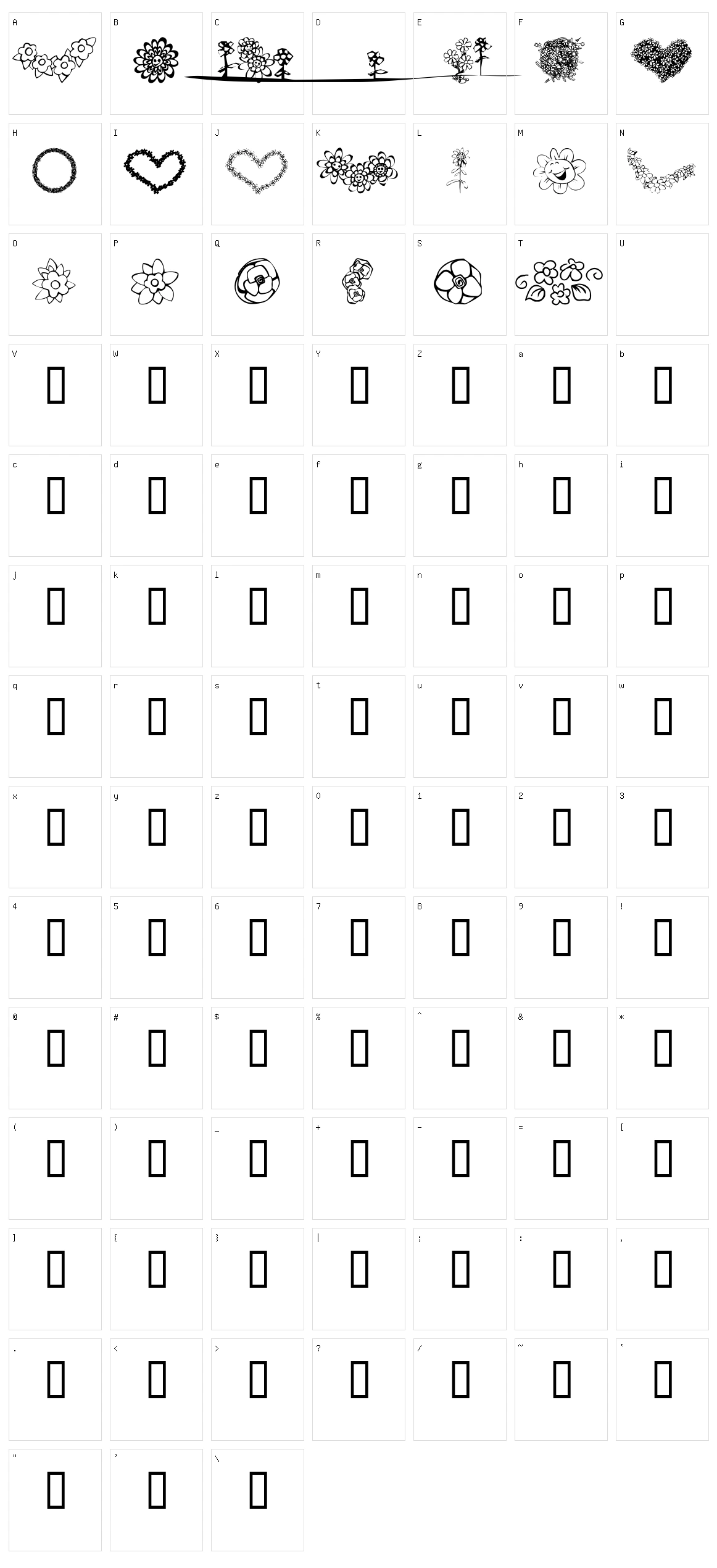
The free font KR Just The Flowers is carefully designed by Kat's Fun Fonts, showcasing a thoughtful balance of creativity and usability and falls under the Valentine font style. When you download the ZIP file, it contains only 49.67 KB of font files, making it lightweight and quick to download. Please review the license details below to understand permitted usage and distribution rights. If license information is not available, we recommend using this font for personal projects only or contacting the author directly for commercial usage permissions.